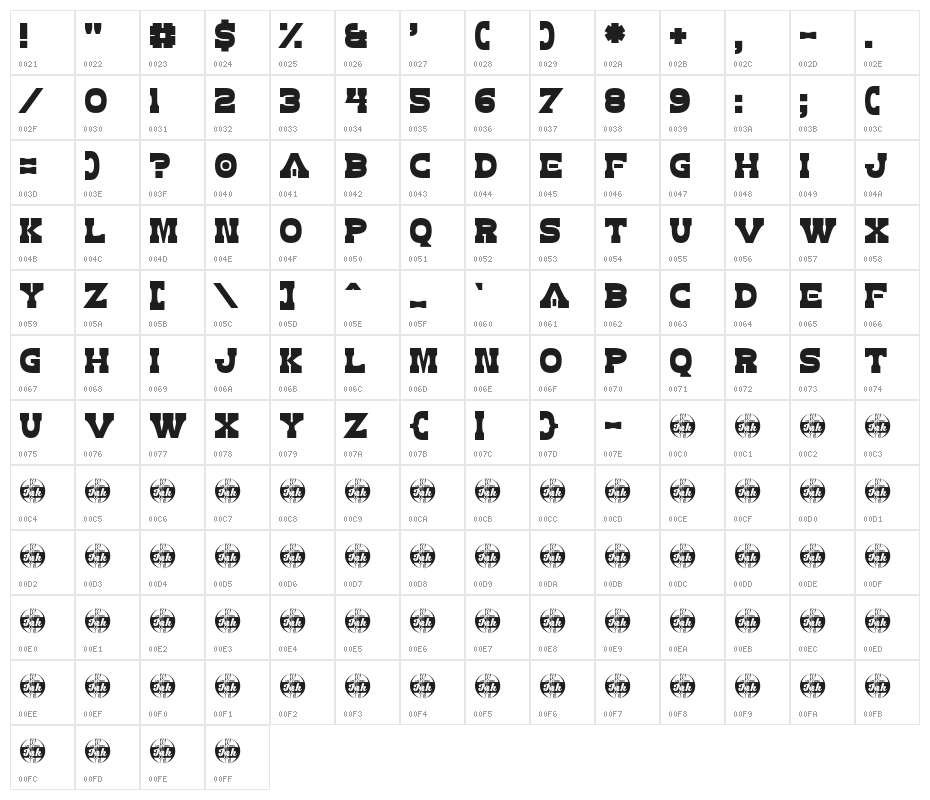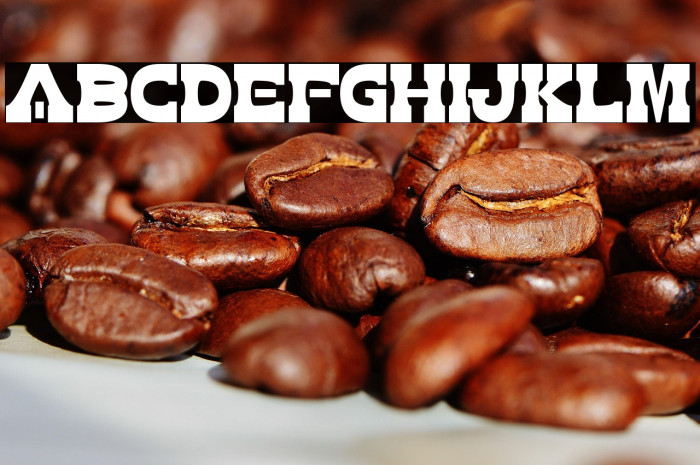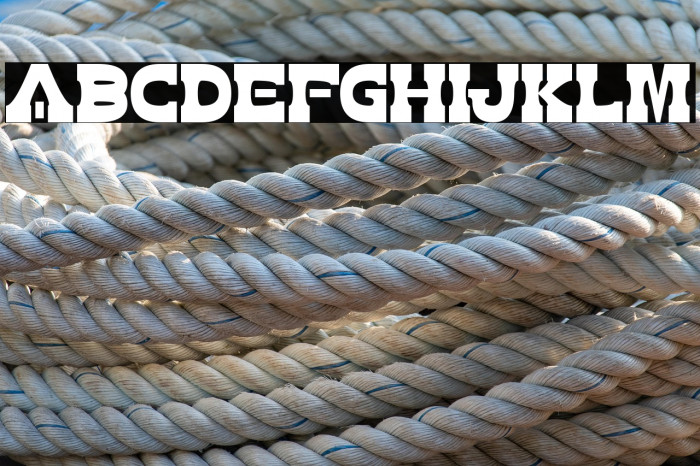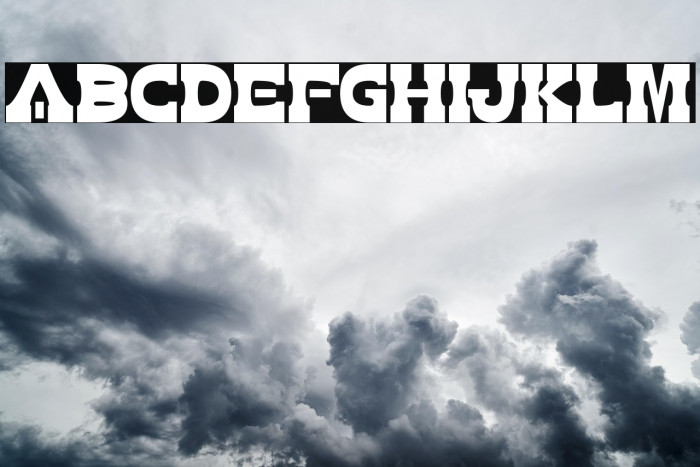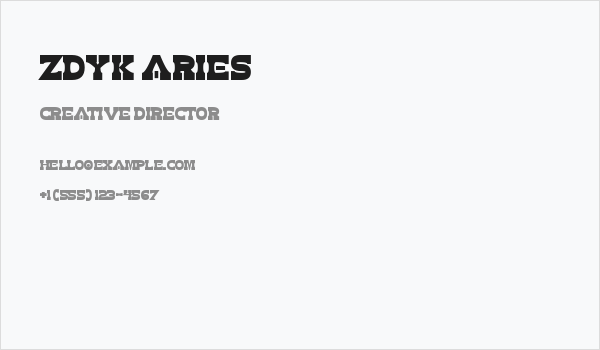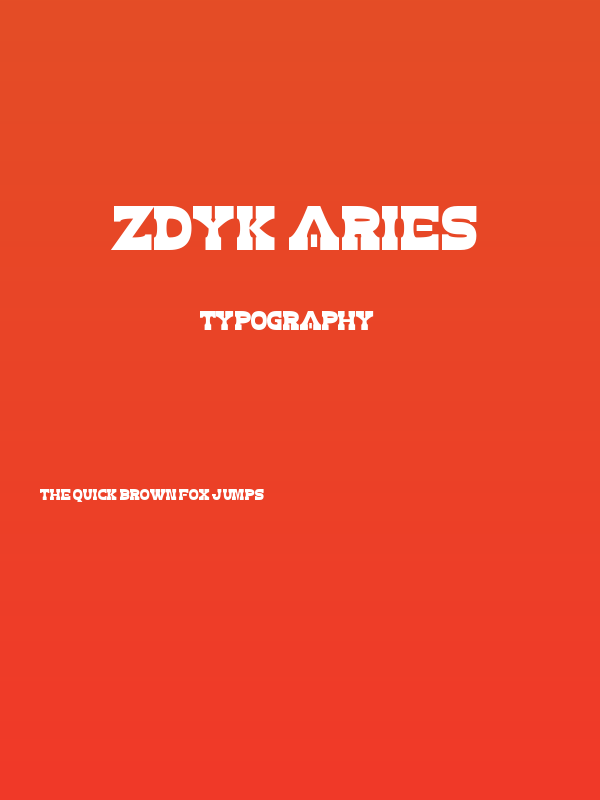
Zdyk Aries Font
Zdyk Aries Description
This font features a bold and striking design with a strong geometric influence. The characters are constructed with thick, block-like strokes that give it a robust and impactful appearance. The uppercase letters are particularly distinctive, with angular cuts and unique shapes that add a sense of modernity and innovation. The numbers and special characters maintain this bold aesthetic, ensuring consistency across all glyphs. The font's overall style is both modern and decorative, making it suitable for projects that require a strong visual presence.
| Proposed Projects | Ideal for headlines, posters, branding, and any design work that requires a bold statement. |